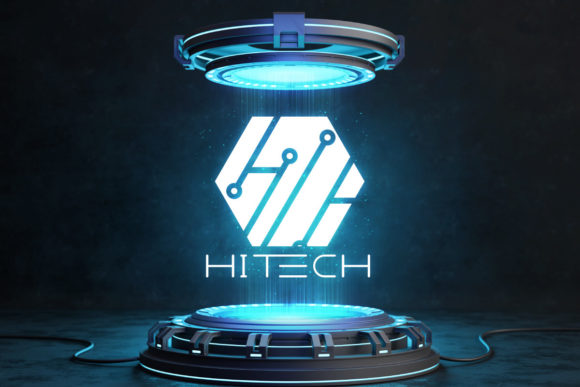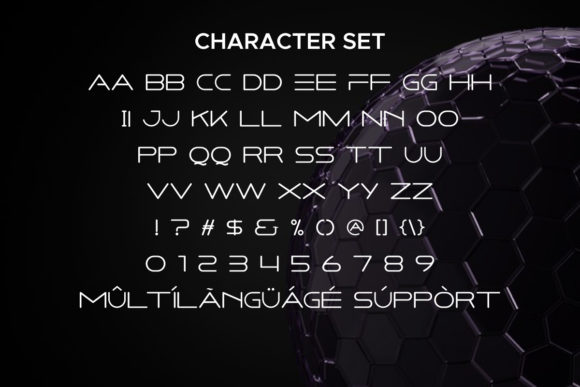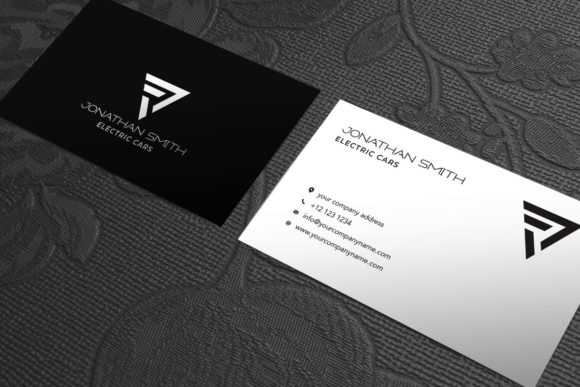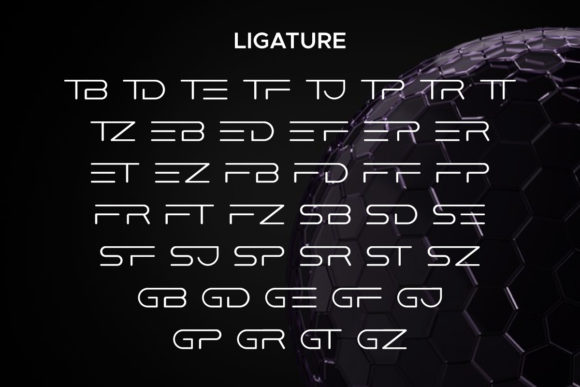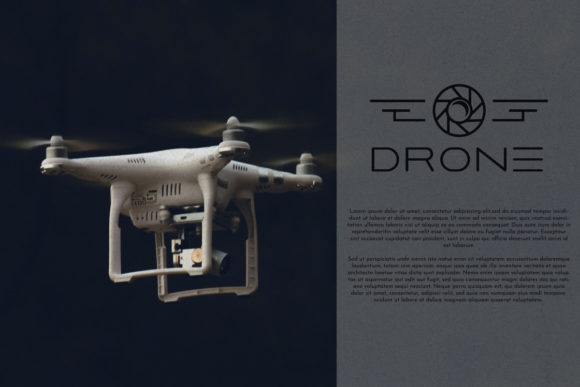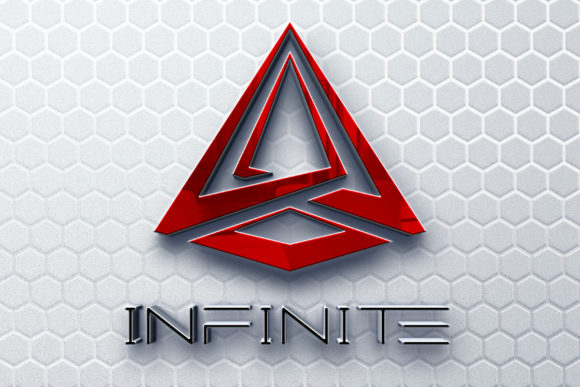
Introduction to Damention Font
Damention is a minimal and modern display font.
It can easily be matched to an incredibly large set of projects, so add it to your creative ideas and notice how it makes them stand out This font is PUA encoded which means you can access all of the amazing glyphs and ligatures with ease.